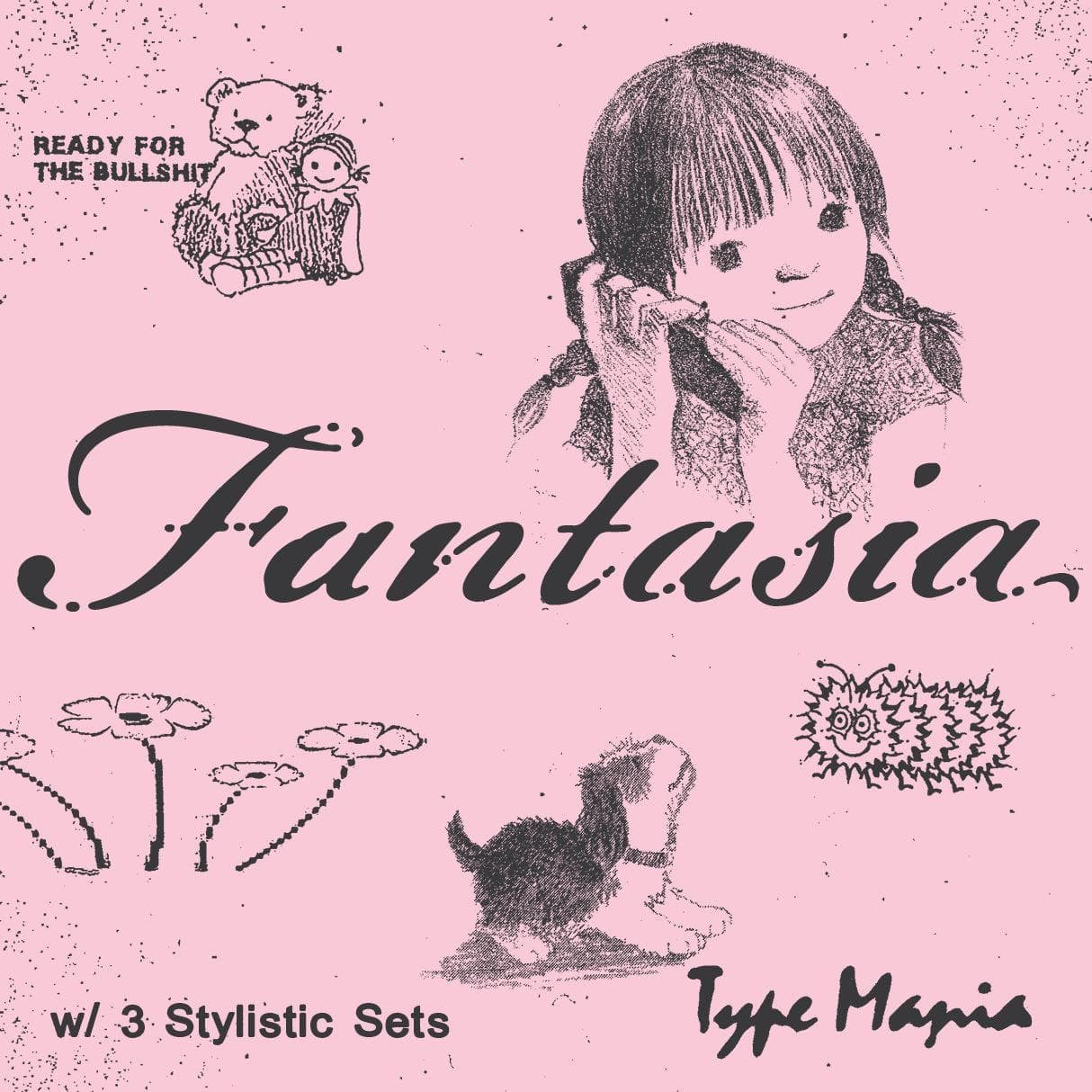
<p><strong>Fantasia TM</strong> is a script font balancing softness and grit. Its curves feature a worn texture, and the rotating stylistic sets guarantee an organic look & feel. Ideal for designs that need character without polish ‧₊˚ ☁️⋅♡𓂃 ࣪ ִֶָ☾.</p> <p><strong>Zip includes</strong></p> <ul> <li>OTF file</li> <li>TTF file</li> <li>WOFF2 file</li> </ul> <p><strong>OpenType features</strong></p> <ul> <li>3 stylistic sets</li> <li>The font is programmed to automatically shift between the stylistic sets 1 & 2</li> </ul> <p><strong>Languages</strong></p> <ul> <li>Basic Latin</li> <li>Western European</li> <li>Euro</li> <li>Central European</li> <li>Pan African Latin</li> </ul> <p><em>Graphic Design is Easy (with Type Mania)®</em></p>